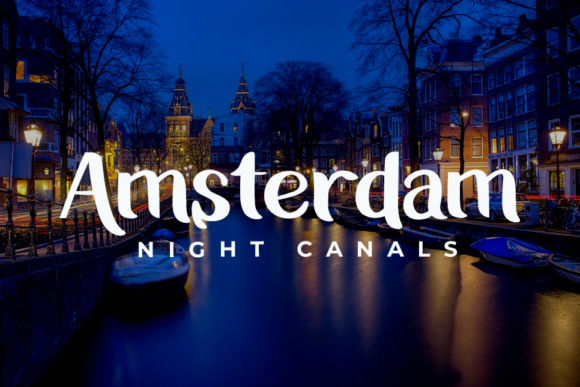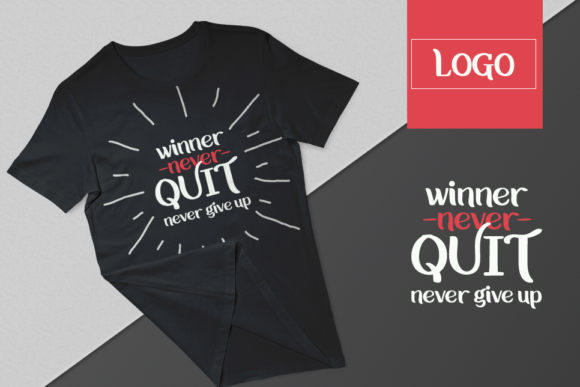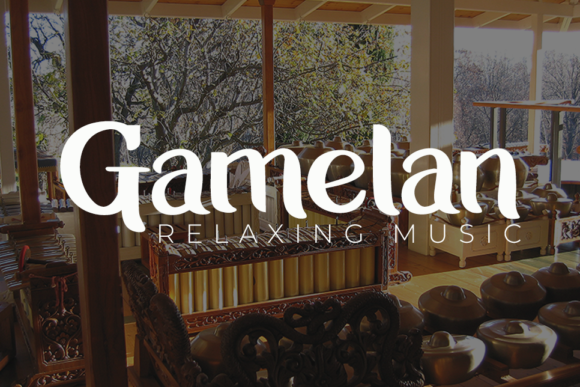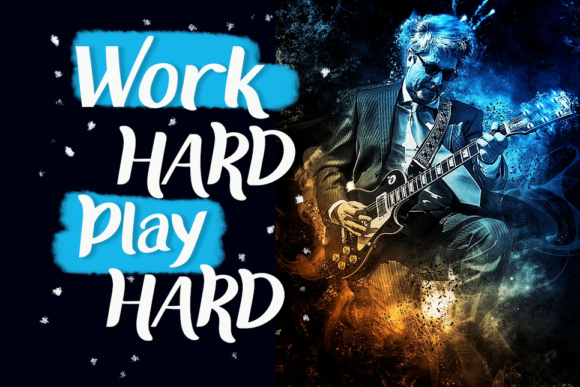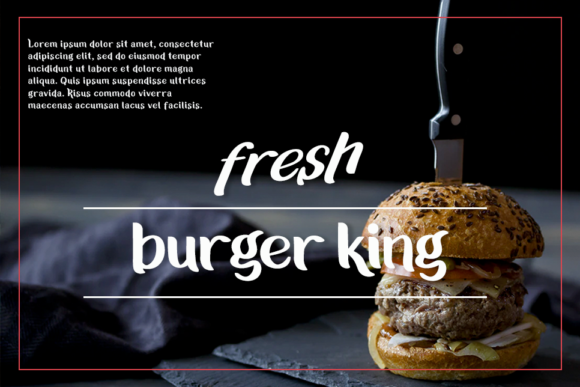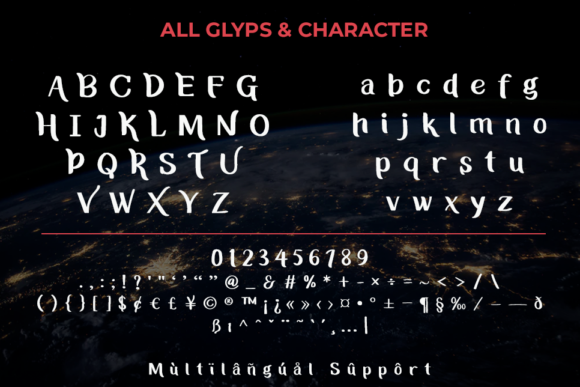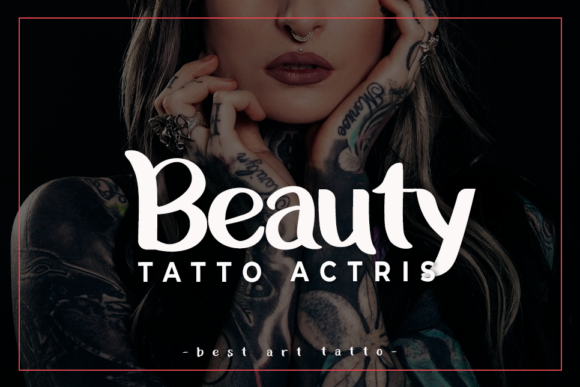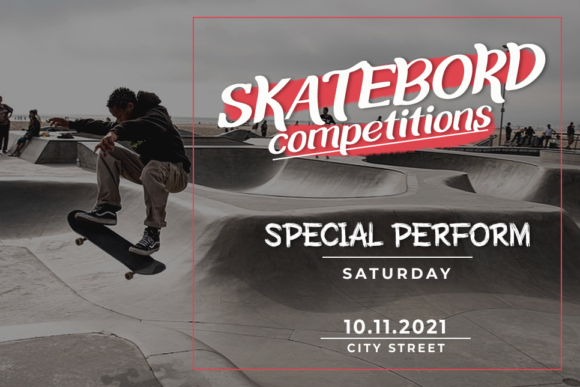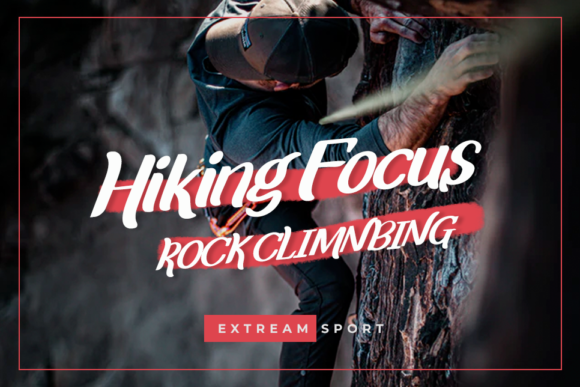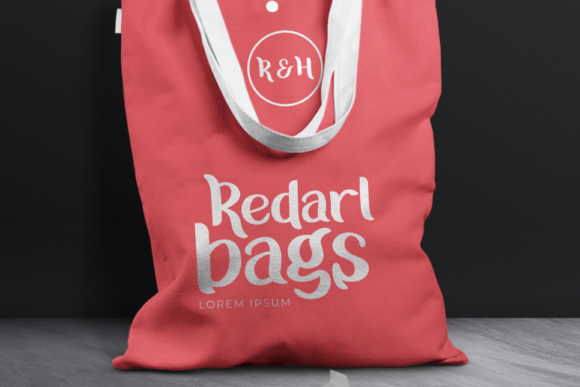
Bregedel Font
About Bregedel Font
Bregedel is a clean, bold handwritten font. Its chunky and extended character will look particularly adept when used in logos, branding, packaging design, and much more. This masterfully designed font is a true must-have.